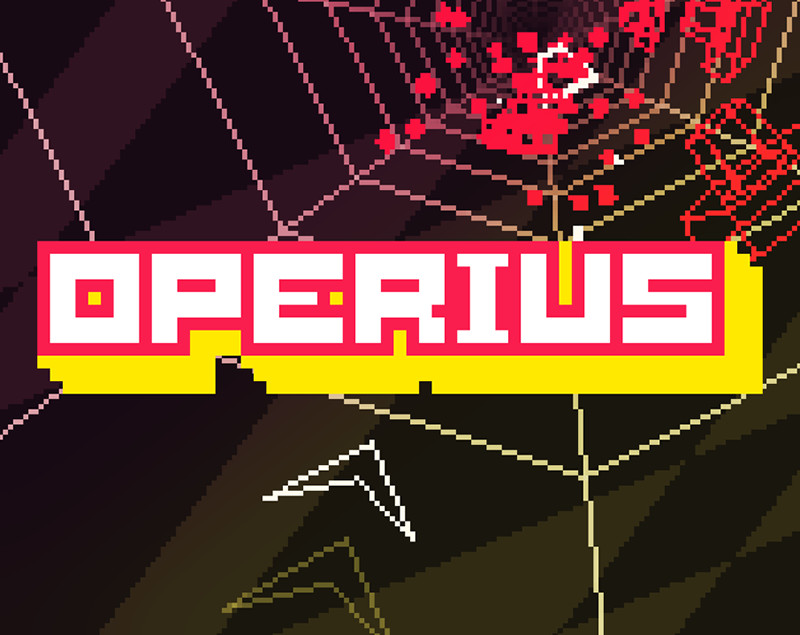
Crang is a proportional sans-serif pixel font recreation based on the original main display font appearing in the video game Operius, developed by Mors Games and released on 2021. The character set of this font was greatly expanded with countless additional special characters, diacritic variants, in-game icons, numbers, buttons, and lots of unique glyphs, each one of them designed to match the spirit and style of the original font design. Created On FontStruct. |